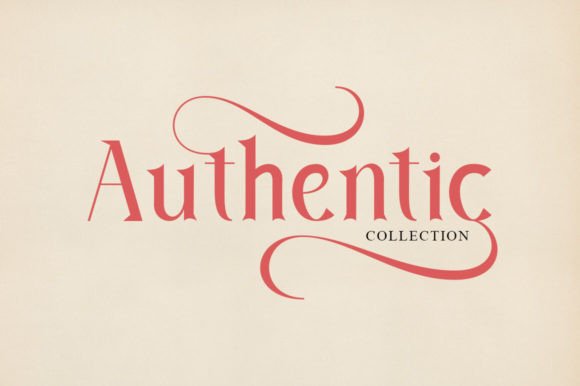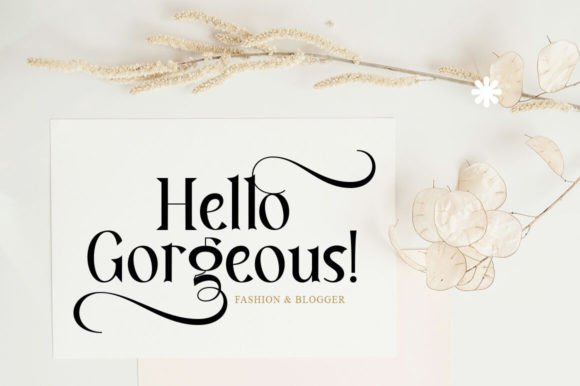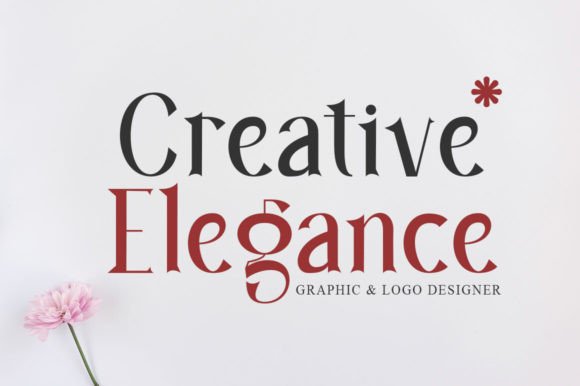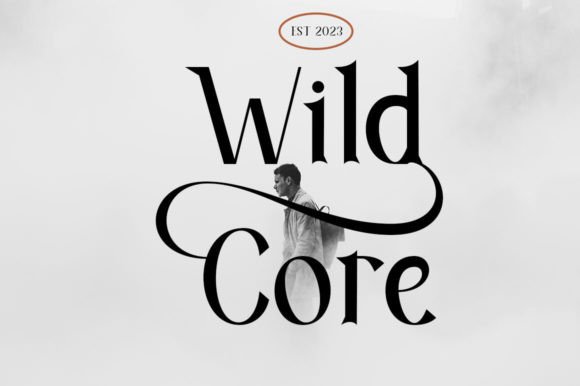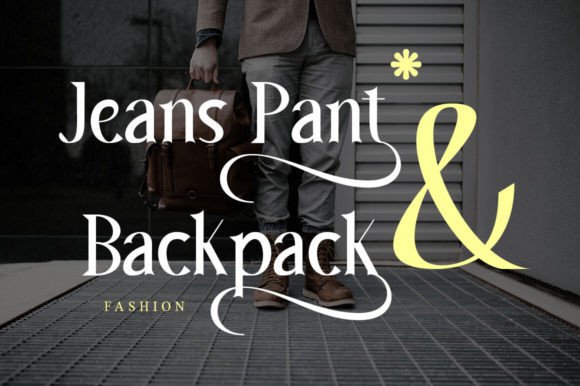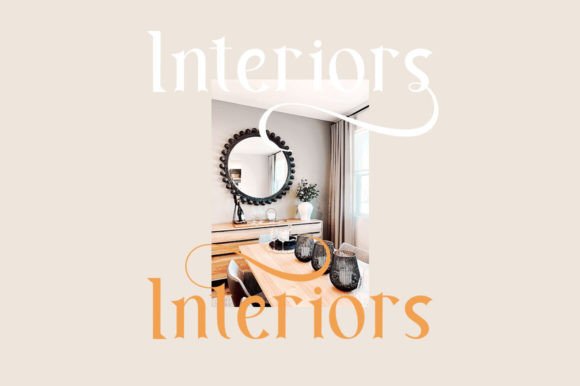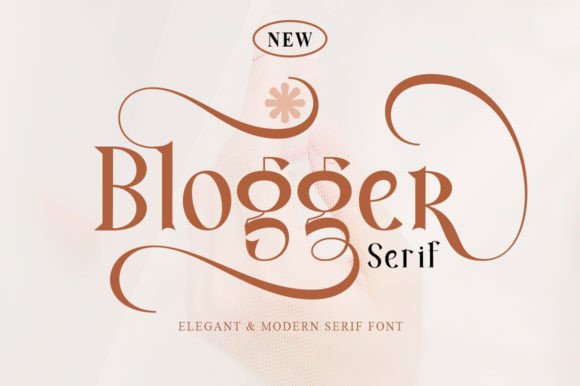
Blogger Font: Elevate Your Designs with a Modern Serif Style
Are you a designer or crafter looking for a versatile font to elevate your creative projects? Look no further than Blogger Font, a modern serif font that’s perfect for a wide range of applications. In this article, we’ll explore the features and benefits of Blogger Font, and show you how to make the most of this stylish and flexible font.
What is Blogger Font?
Blogger Font is a modern serif font designed to bring a touch of sophistication and elegance to your designs. Its clean lines, classic proportions, and subtle flair make it perfect for use in a variety of contexts, from blog headers and posters to wedding elements and clothing.
Key Features of Blogger Font
- Modern serif design: Blogger Font boasts a fresh and contemporary take on the classic serif style, making it perfect for designers and crafters looking for a font that’s both stylish and versatile.
- Wide range of applications: From blog headers and posters to wedding elements, t-shirts, and business cards, Blogger Font can be used for almost anything.
- Easy to read: The font’s clear and legible design makes it perfect for use in body text, headlines, and titles.
- Customizable: With its range of weights and styles, Blogger Font can be tailored to suit your specific design needs.
Uses for Blogger Font
So, what can you use Blogger Font for? The possibilities are endless! Here are some ideas to get you started:
- Blog headers: Add a touch of style and sophistication to your blog with Blogger Font.
- Posters and flyers: Create eye-catching posters and flyers with Blogger Font’s bold and modern design.
- Wedding elements: Use Blogger Font to create beautiful wedding invitations, programs, and decorations.
- T-shirts and clothing: Add a stylish touch to your apparel designs with Blogger Font.
- Book covers and business cards: Use Blogger Font to create professional-looking book covers and business cards.
- Greeting cards and invitations: Create beautiful and elegant greeting cards and invitations with Blogger Font.
- Branding and quotes: Use Blogger Font to create stunning brand identities and inspirational quotes.
Tips for Using Blogger Font
Here are some tips for getting the most out of Blogger Font:
- Experiment with different weights and styles: Try out different weights and styles to find the perfect look for your design.
- Pair with other fonts: Combine Blogger Font with other fonts to create a unique and eye-catching design.
- Use for headlines and body text: Take advantage of Blogger Font’s clear and legible design by using it for both headlines and body text.
Blogger Font is a versatile and stylish modern serif font that’s perfect for designers and crafters looking to elevate their creative projects. With its wide range of applications, customizable design, and easy-to-read style, Blogger Font is the perfect choice for anyone looking to add a touch of sophistication and elegance to their designs.